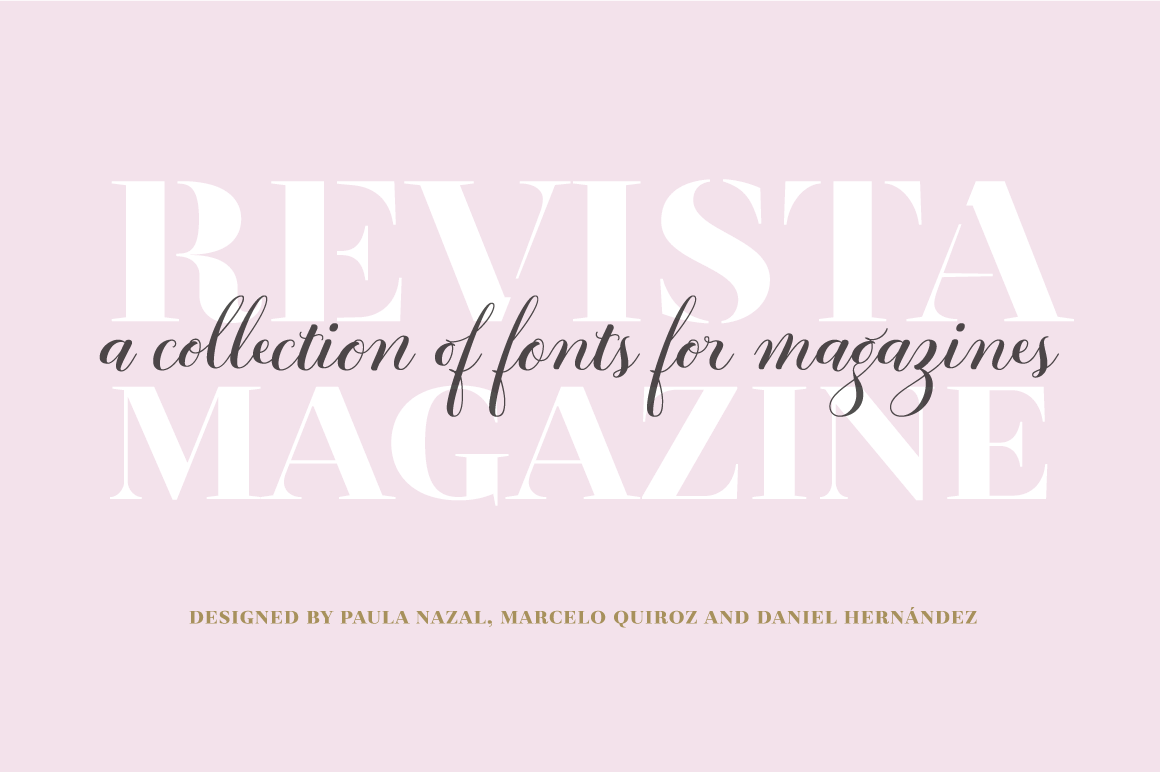
From the Red Carpet to dress shopping, fashion has a fantastic feel all of its own. And if you’re working on some sort of fashion magazine-type project, you owe it to yourself to snag this Mighty Deal from the Latinotype Foundry. The Revista Font Family consists of 26 unique fonts covering a wide range of weights and styles. Besides a set of uppercase and small caps family, there’s a Stencil and Script Family, mixed in with OpenType features including ligatures, alternates, ornaments and dingbats. Fashion forward with Revista!
- Take on any fashion magazine-type project with the Revista typographic system.
- Blending a variety of styles into 1 gorgeous font family, Revista features 26 unique fonts!
- Make use of the Didone uppercase and small caps family, which also includes 4 variants ranging from monolinear thin to Black with matching italics.
- There’s even an Inline Black variant that can offer a decorative alternative to the didone fonts.
- The Revista Stencil includes all those same variants as well.
- Revista’s Script Family sports 5 different weights from Thin to Black.
- Loads of dingbats, ornaments, ligatures and alternates provide even more flexibility and creativity with your fonts.